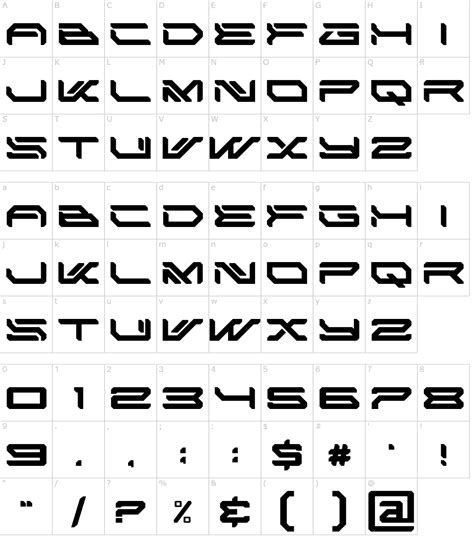
Unveiling The Cosmic Typography: Space Armor Font
Unveiling the Cosmic Typography: Space Armor Font
Hey there, fellow font fanatics and design enthusiasts! Ever gazed up at the night sky, captivated by the twinkling stars and the vast expanse of the cosmos? Well, imagine capturing that same sense of wonder and futuristic allure in your typography. That’s where the space armor font comes in – a genre of typefaces designed to evoke the sleek, high-tech aesthetic of spaceships, futuristic armor, and all things intergalactic. Let’s dive deep into the fascinating world of space armor fonts, exploring their characteristics, uses, and how you can harness their power to elevate your designs.
What Exactly is a Space Armor Font?
So, what exactly is a space armor font ? Think of it as a design style that draws inspiration from science fiction, futuristic technology, and the imagery of space exploration. These fonts typically feature sharp angles, bold lines, and a distinctly modern feel. They often incorporate elements reminiscent of:
• Spaceship designs: Think of the sleek curves and angular lines of spacecraft, mirrored in the letterforms. You might find fonts with characters that resemble the hulls or control panels of futuristic ships.
• Robotics and Artificial Intelligence: Fonts that conjure the digital world, with clean, geometric shapes and a sense of precision. These often have a very technological feel, as if the letters themselves were constructed by robots.
• Futuristic Armor: Bold, imposing, and slightly aggressive, these fonts are designed to convey strength and resilience, mirroring the protective qualities of space armor. This often includes blocky, heavy characters.
• Outer Space Imagery: The fonts might incorporate visual elements like stars, nebulae, or other cosmic patterns, or even have a color scheme that evokes the vastness of space. The aim is to create a visual experience that transports the viewer to another world.
In essence, space armor fonts are all about creating a sense of the future, conveying a feeling of technological advancement, and making a bold visual statement. They are the perfect choice when you want to create a design that looks both cutting-edge and undeniably cool. These fonts are more than just text; they are a visual expression of the future, perfect for a range of projects from gaming to brand identity.
Characteristics of a Space Armor Font
Let’s get into the nitty-gritty and examine the key characteristics that define a space armor font. Understanding these features will help you identify these fonts and use them effectively in your projects.
• Geometric Shapes: One of the most common traits is the use of strong geometric shapes. Think of perfect circles, squares, triangles, and other basic forms that are meticulously arranged to construct the letters. This gives the font a precise, calculated feel.
• Boldness and Weight: Many space armor fonts are designed to grab attention. This often translates to a heavier weight, meaning the strokes that make up the letters are thick and dominant. The boldness makes the font stand out, especially against a more simple background.
• Sharp Angles and Straight Lines: Curved lines may be limited, with angular forms and straight lines taking center stage. The angles create a sense of movement and speed, enhancing the futuristic aesthetic.
• Limited Serifs: Serifs, the small decorative strokes at the end of letter stems, are typically absent. Sans-serif fonts (fonts without serifs) are common, creating a cleaner and more streamlined look that complements the futuristic feel.
• High Contrast: Space armor fonts often have a high contrast between thick and thin strokes within the letterforms. This helps to create depth and visual interest, making the fonts even more dynamic. This can also include the use of negative space in interesting ways.
• Modern and Technological Feel: These fonts always aim to look contemporary, with a nod to the future. It is a visual representation of the technological advancements we are continually seeing.
• Monospaced or Condensed Styles: Monospaced fonts (where each character takes up the same amount of horizontal space) or condensed fonts (where the letters are narrower) are often used. This allows for efficient use of space, echoing the clean, organized feel of advanced technology.
These characteristics work together to create a font style that is both functional and visually striking. When you’re searching for a space armor font, keep an eye out for these features. They’re your guide to finding the perfect typeface for your futuristic design.
Where to Use Space Armor Fonts
So, now that you know what a space armor font is and what it looks like, where can you actually use them? Here are some of the most popular applications:
• Gaming: Gaming is an obvious choice. The bold and dynamic style fits perfectly with the aesthetic of sci-fi games, strategy games, and any game that takes place in a futuristic world. From logos and UI elements to titles and headlines, these fonts can immerse players in the game’s atmosphere.
• Science Fiction and Fantasy: Any creative project with a sci-fi or fantasy theme benefits from a space armor font. Book covers, movie posters, and promotional materials all become more compelling when the font reinforces the core themes of the story.
• Technology and Innovation: If you’re working on a project related to technology, coding, or innovation, a space armor font can visually communicate those themes. It gives the feeling of cutting-edge technology.
• Branding and Logos: Space armor fonts can be used to create impactful logos and branding materials for companies that want to project a modern, high-tech image. They can be particularly effective in industries like aerospace, robotics, and cybersecurity.
• Web Design: These fonts can be a great choice for headlines and titles on websites that have a futuristic or technological theme. They can add a visual pop and make the website feel more modern.
• App Design: Apps with a futuristic theme can use space armor fonts in their user interfaces. The fonts make the app visually appealing and reinforce the theme.
• Posters and Advertisements: If you want to grab attention, using a space armor font in a poster or advertisement will do the trick. The fonts are striking and memorable. They work well for anything from movie releases to product promotions.
Famous Examples of Space Armor Fonts
There are tons of fantastic space armor fonts out there, each with its own unique personality. Some of the most popular and well-regarded include:
• Roboto: Not strictly a space armor font, but Roboto’s clean, geometric design and wide availability make it a versatile choice that pairs well with space-themed designs. It strikes a balance between functionality and a modern aesthetic.
• Avenir: A sans-serif font with a slightly geometric feel. It is clean and modern, which makes it perfect for a modern design.
• Orbitron: Specifically designed to be a